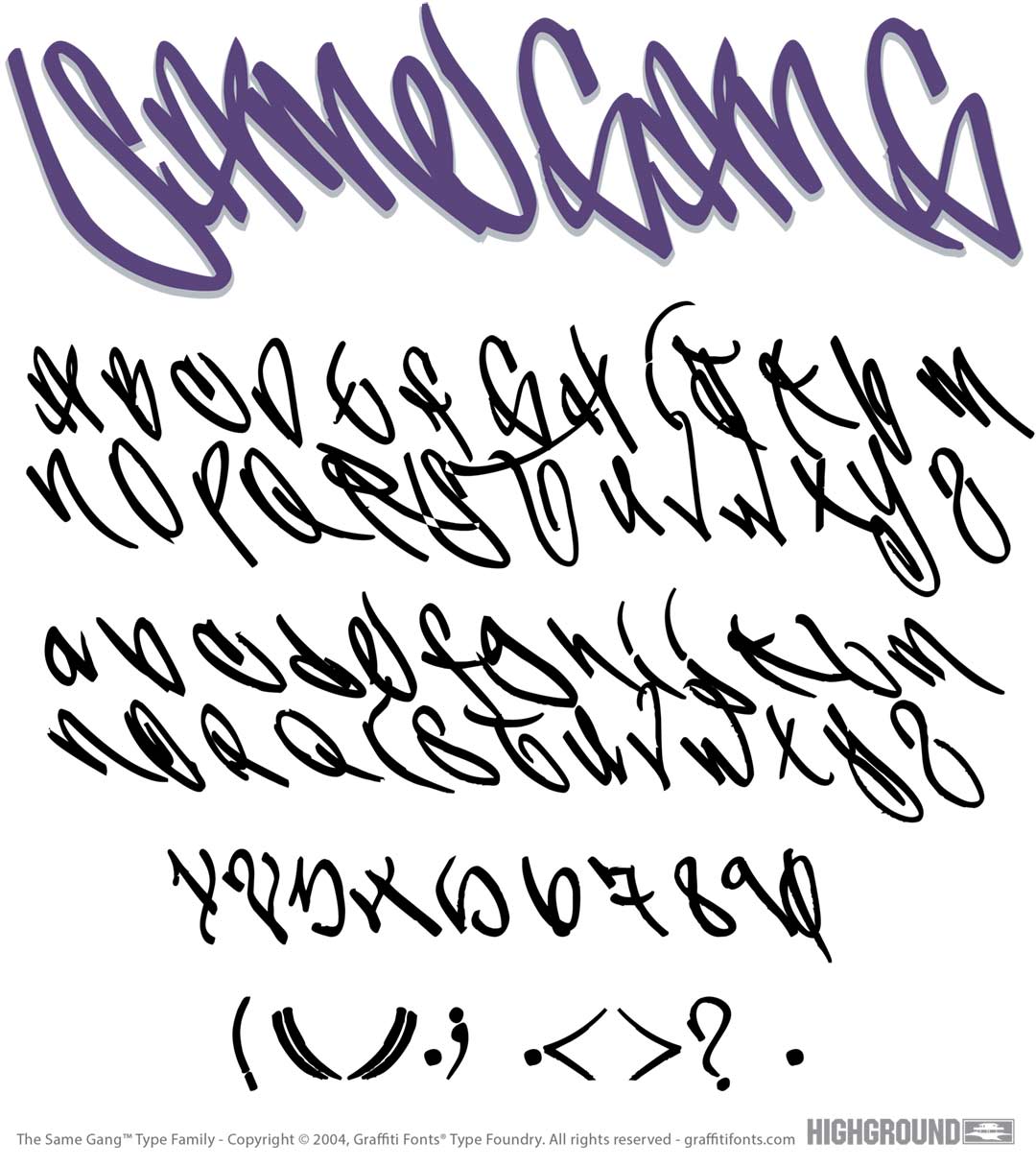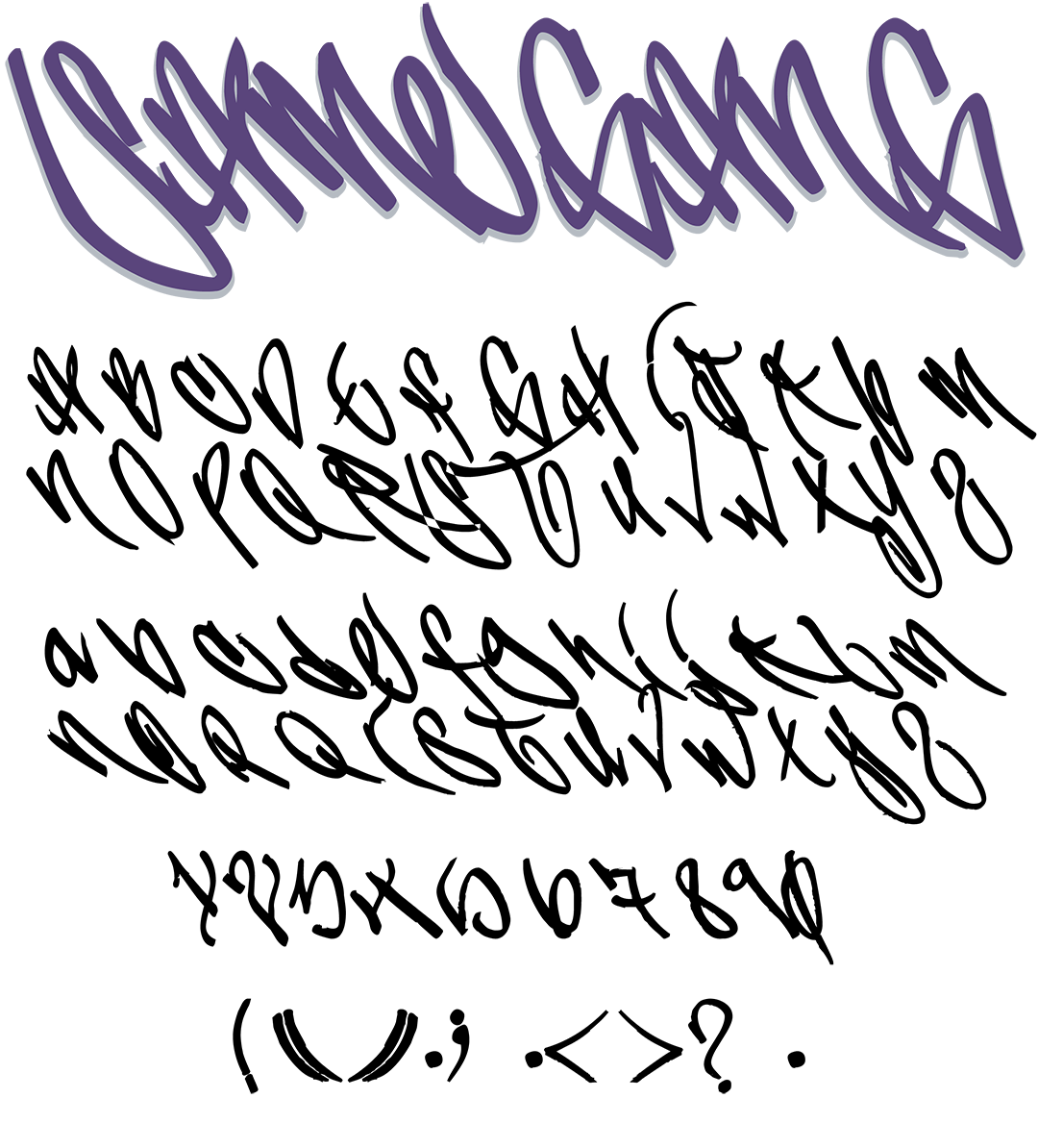
SameGang Font
SameGang Graffiti Alphabet
SameGang Graffiti Font Family
Thin, reverse italic handstyles from Dim One. These 75 wild characters were compiled from one of the San Jose artists signature styles.